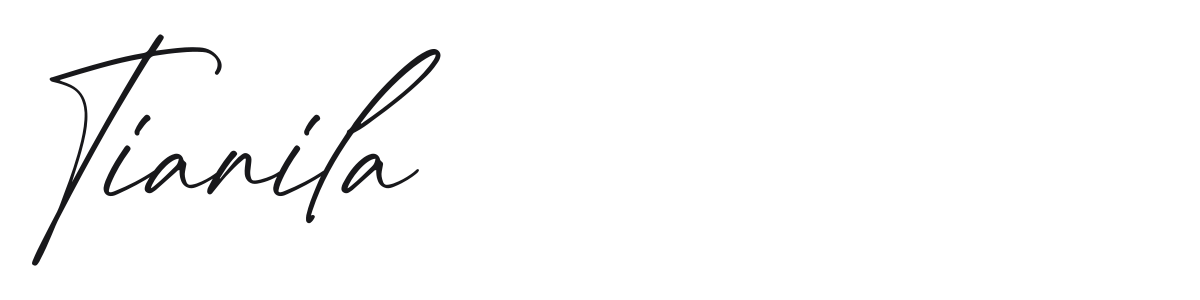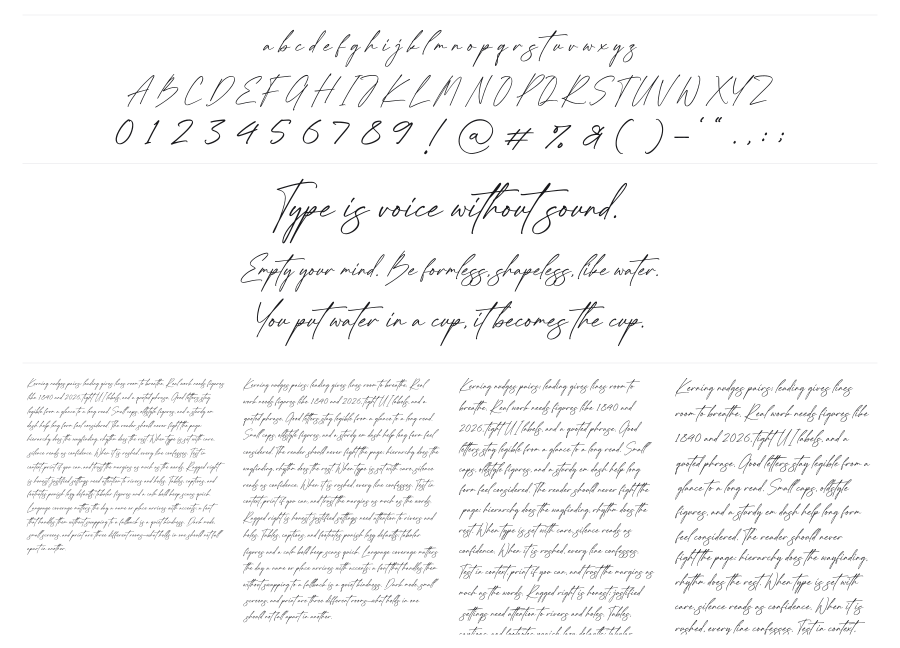
Tianila
Tianila is a flowing casual script that mimics the confident sweep of a personal signature. Its thin strokes, crossing ascenders, and extended connecting tails give it a breezy, high-end handwritten quality. Strong for wedding stationery, beauty branding, and any context where a personal, elegant touch is needed.